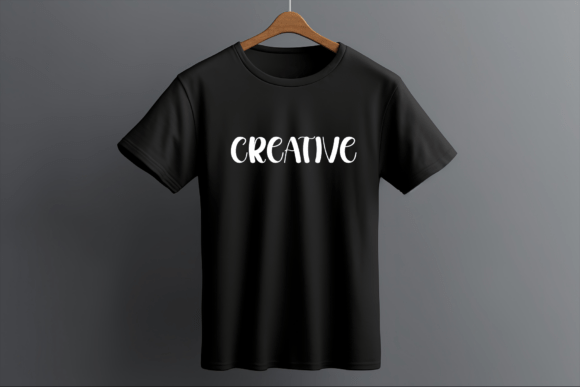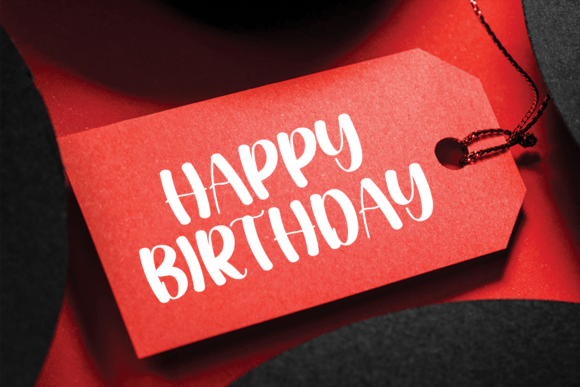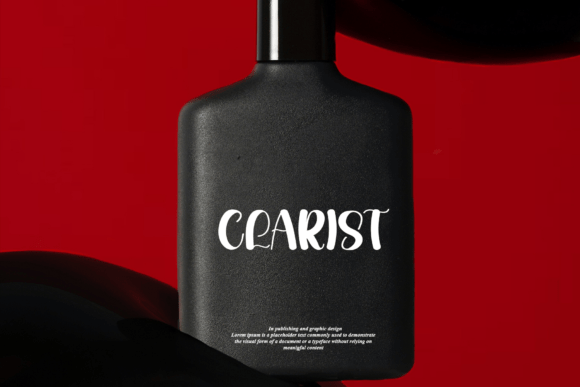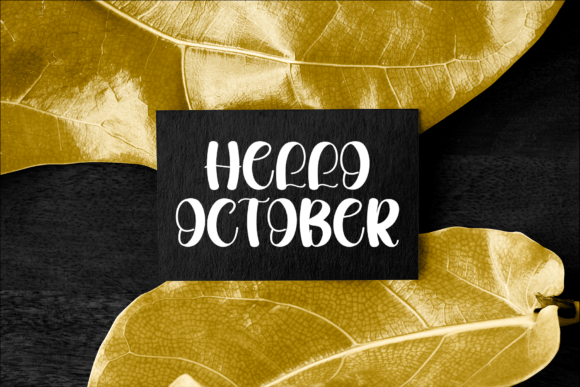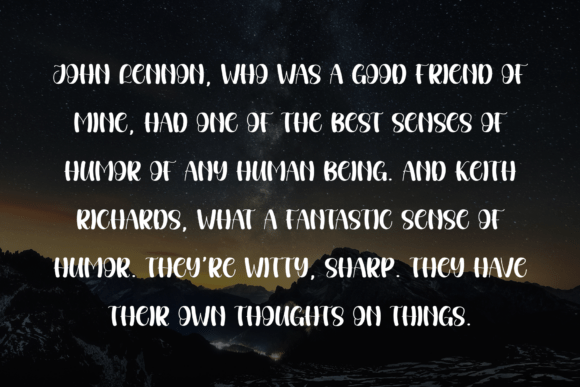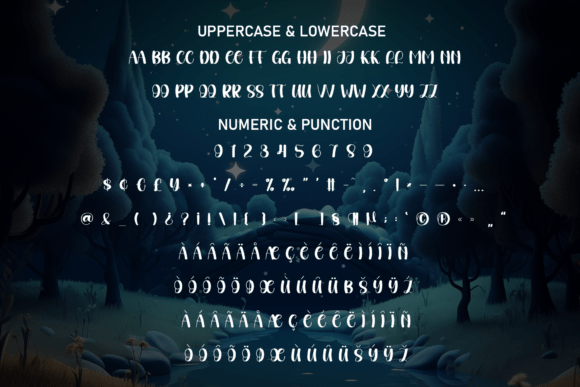
Introduction to Night Design Font
Introducing a charmingly whimsical handwritten display font – sweet, friendly, and exuding an irresistible fun vibe.
This enchanting font seamlessly combines playfulness and elegance, making it an ideal choice for carefully crafting stunning wedding invitations or unique cards Infuse your designs with a delightful touch utilizing this creatively appealing font.
Night Design Font offers exceptional quality and versatility, making it a valuable addition to your design toolkit. Whether you’re creating for personal projects or commercial use, Night Design Font delivers professional results.